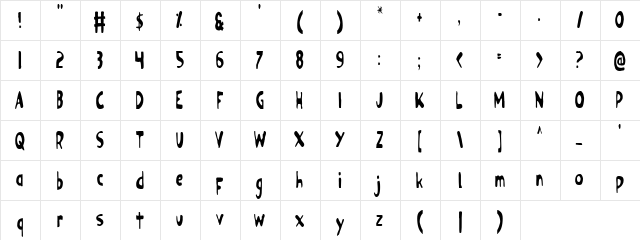
Ozymandias Condensed Condensed
Design Context for Ozymandias Condensed Typeface
Ozymandias Condensed takes a measured approach to typography — its balanced proportions and neutral character make it a reliable workhorse for both digital and print work. The condensed width makes it efficient for tight spaces without sacrificing legibility.